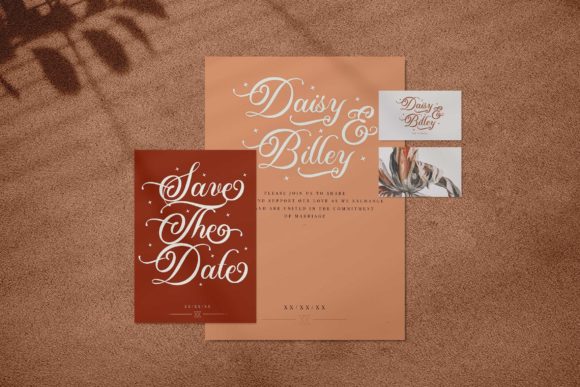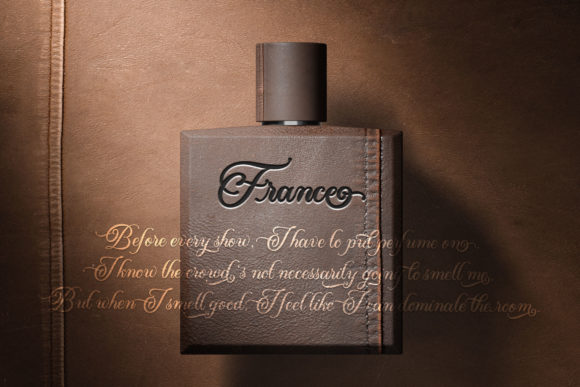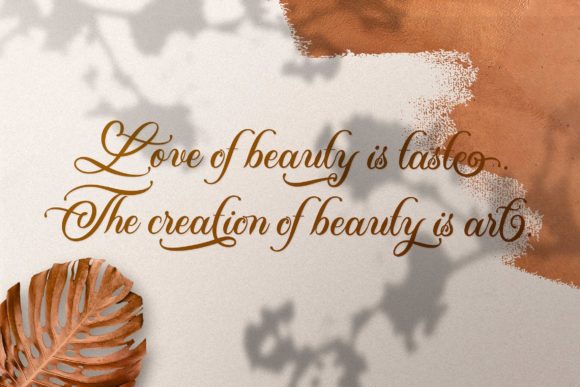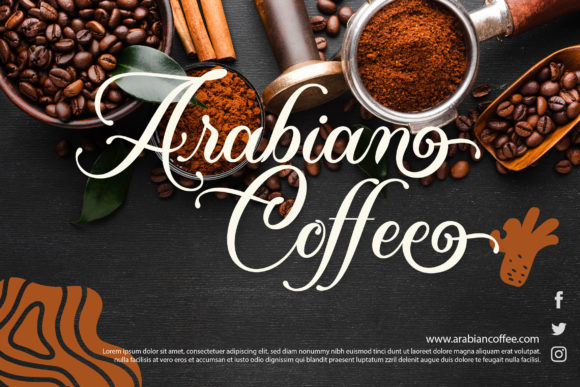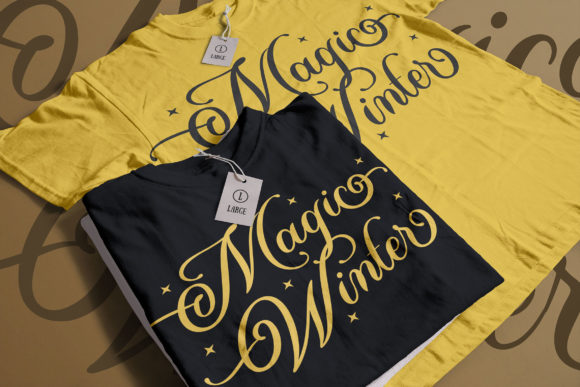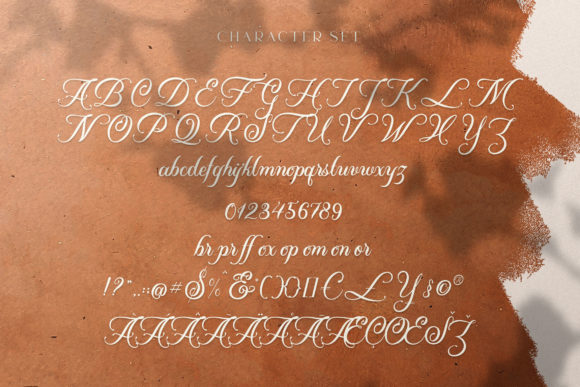
Get Ready to Fall in Love with the Almond Script Font
Have you ever been stuck on a design project, staring at a blank page, waiting for inspiration to strike? You’re not alone. Sometimes all it takes is a spark of creativity to set our imaginations ablaze. For me, it’s the discovery of a new font that can make all the difference. And, I’m thrilled to introduce you to the Almond Script Font – a thin lettered and graceful script font that’s sure to captivate your senses.
This beautiful font is perfect for designers who want to add a touch of elegance and sophistication to their projects. With its ravishing style, the Almond Script Font is an ideal choice for creating gorgeous designs that leave a lasting impression. And, with its PUA encoding, you’ll have access to all the glyphs and swashes you need to take your designs to the next level.
Key Features of Almond Script Font
- Unique Characteristics: This script font features a delicate, handwritten style with subtle flair and elegance, making it ideal for invitations, wedding stationery, and other creative projects.
Almond Script Font Review
Overall, I think the Almond Script font is a beautiful addition to any design project. Its elegant, cursive script makes it perfect for adding a touch of sophistication to invitations, signage, and other creative endeavors. ✨
The font’s versatility is one of its strongest suits – it can be used for both formal and casual designs, making it a great choice for a wide range of applications. Additionally, the font’s high-quality rendering makes it perfect for print projects, where clarity and legibility are crucial. ✨
- Beautiful, elegant script style
- High-quality rendering for print projects
- Versatile and suitable for both formal and casual designs
- Some characters may be difficult to read, especially at small font sizes
- Lack of bold and italic variants may limit its use in certain situations
- May not be suitable for digital use, where legibility is critical
In conclusion, while the Almond Script font has some limitations, its unique style and versatility make it a great choice for designers looking to add a touch of elegance to their projects. Overall, I would give it 4 out of 5 stars. ⚠️
Getting the Most Out of Almond Script Font
Here are some tips to get the most out of Almond Script Font:
- Use it for titles and headings to add a touch of elegance.
- Pair it with other fonts to create a unique and stylish typography.
Almond Script Font is perfect for: